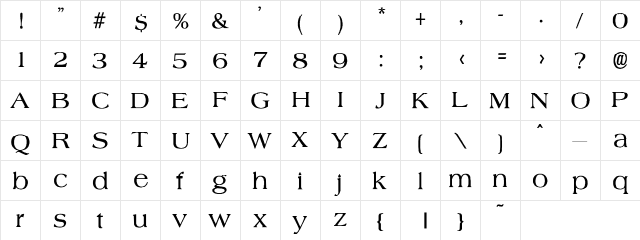
Patriotic-Mediu Regular Font Preview
Patriotic-Mediu Regular
Patriotic-Mediu Regular Font Details
Design Context for Patriotic-Mediu Typeface
Patriotic-Mediu offers clean, dependable letterforms without strong stylistic allegiance, making it a practical choice for designers who need flexibility.